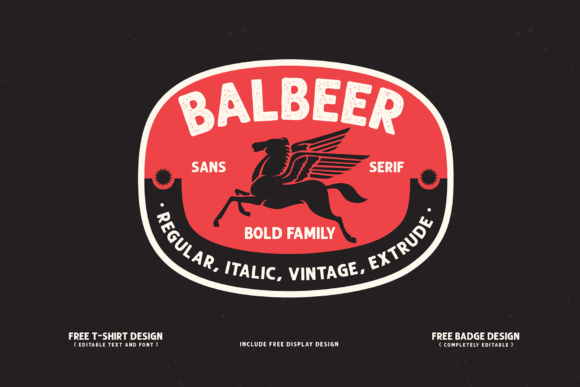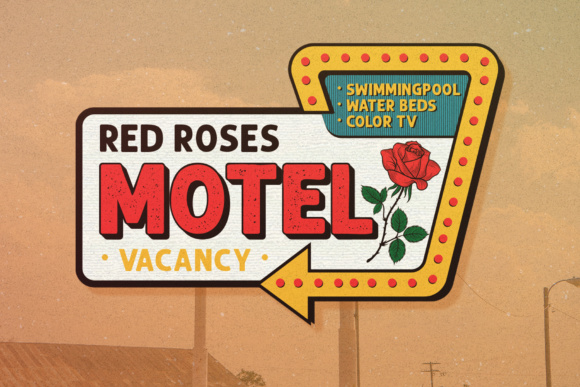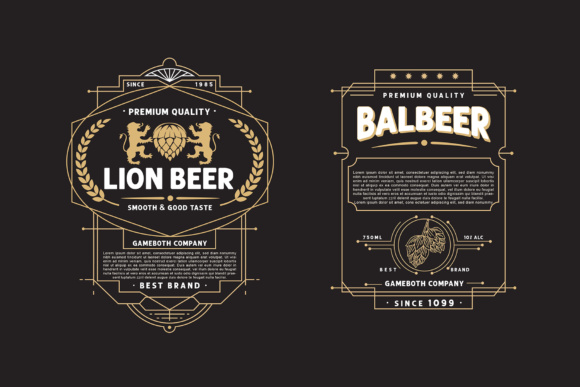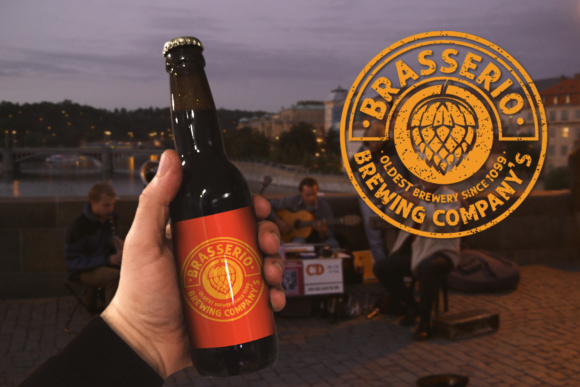
Balbeer Font: Vintage Grunge Typography for Bold Logo Design & T-shirts
About the Balbeer Font
Add a touch of class to your work with the Balbeer Font, a truly exceptional typeface. The Balbeer is a striking font family which comes with 6 styles. It has a vintage grunge effect and included 4 display designs, 2 t-shirt designs, and 6 badge designs as a bonus!
Balbeer’s vintage grunge effect makes it ideal for headlines, posters, and branding projects requiring a bold, retro aesthetic. It works exceptionally well for apparel designs, given the included t-shirt styles, and would be a strong choice for packaging that targets a younger, edgier demographic. However, its distressed texture and heavier weight make it unsuitable for body text or UI elements where readability is paramount.
Pairing Balbeer effectively depends on the desired emphasis. For a balanced contrast, consider pairing it with a clean sans-serif like Montserrat or a neutral serif such as Lora. To enhance its rebellious feel, a geometric sans-serif like Bebas Neue could work well. Avoid pairing it with other highly decorative fonts, as this could create visual clutter.
The Balbeer font family projects a confident, rebellious personality. Its vintage grunge style offers a sense of nostalgia while retaining a modern edge, making it suitable for brands that wish to convey authenticity and a strong visual identity.
Balbeer Font Usage Examples
Balbeer Font Example